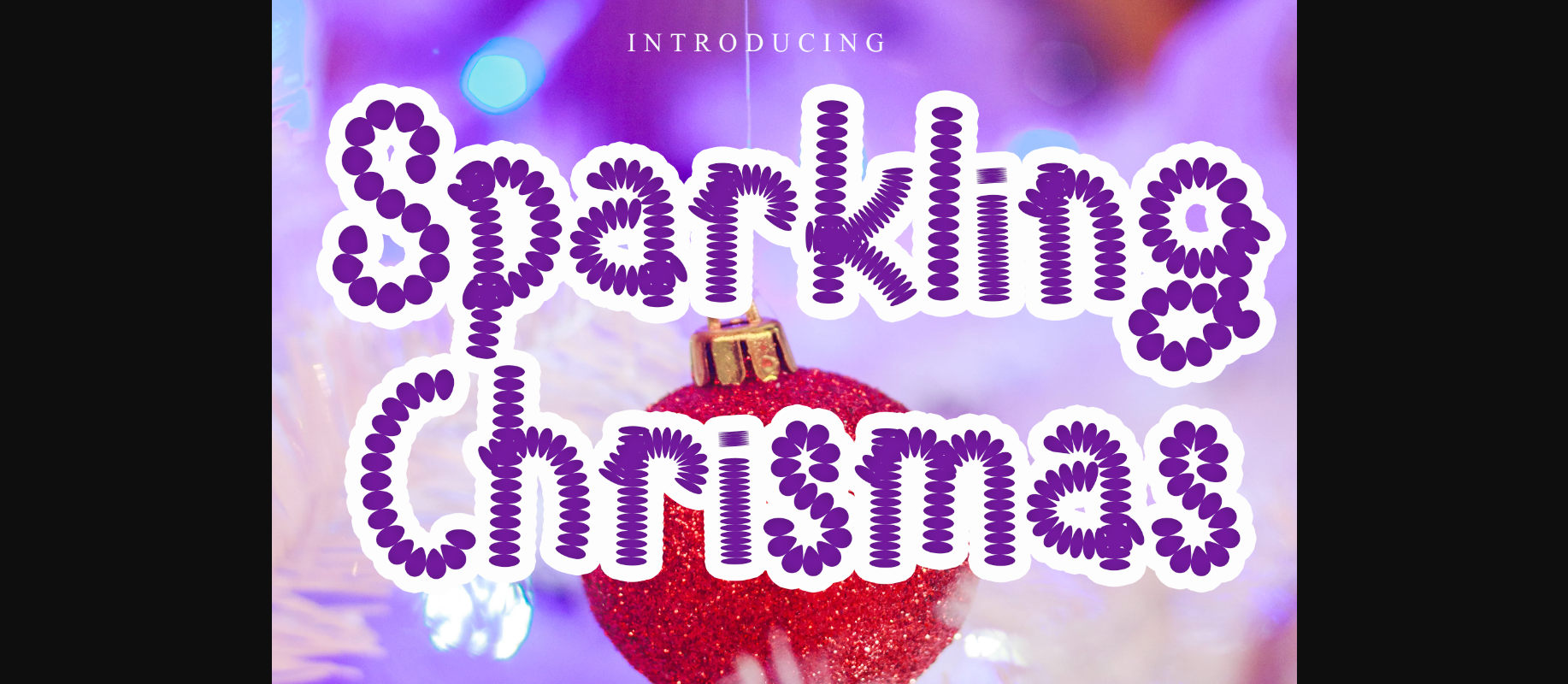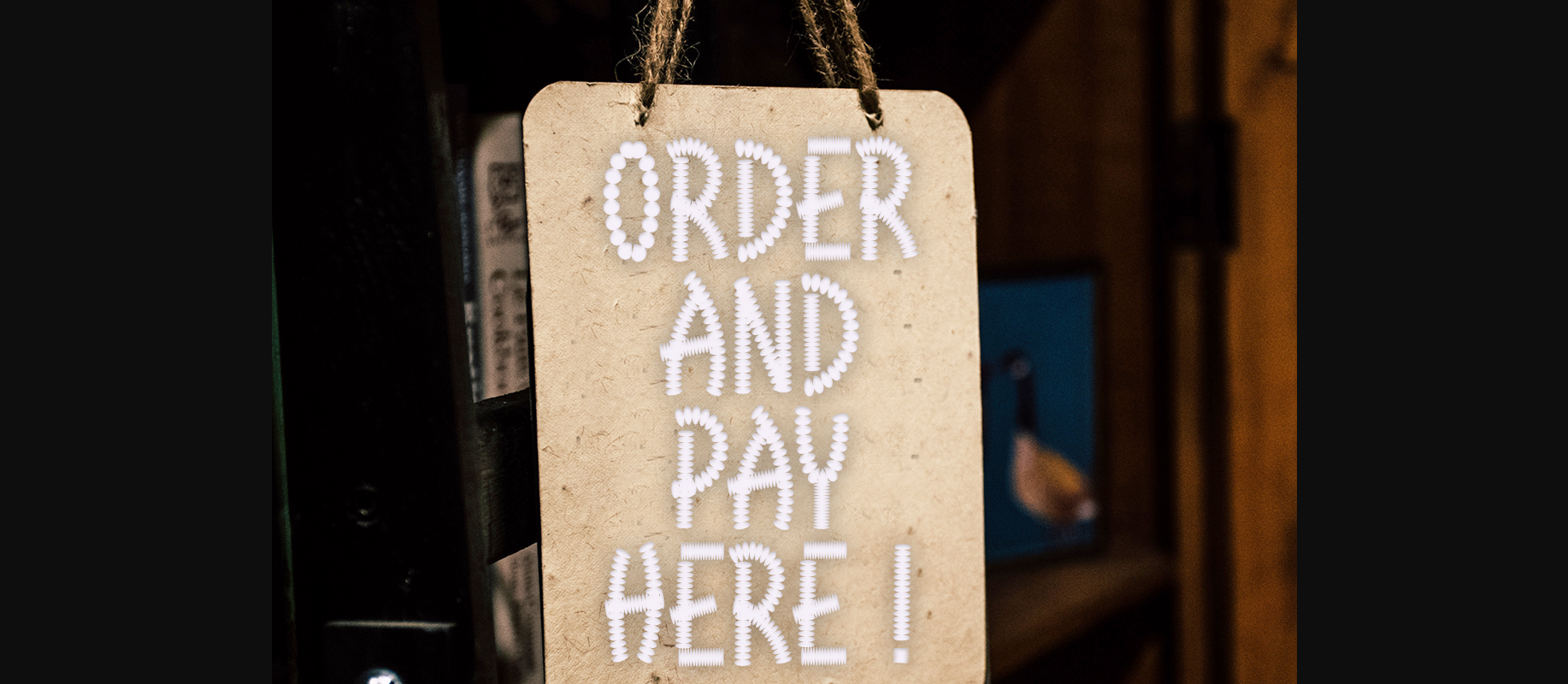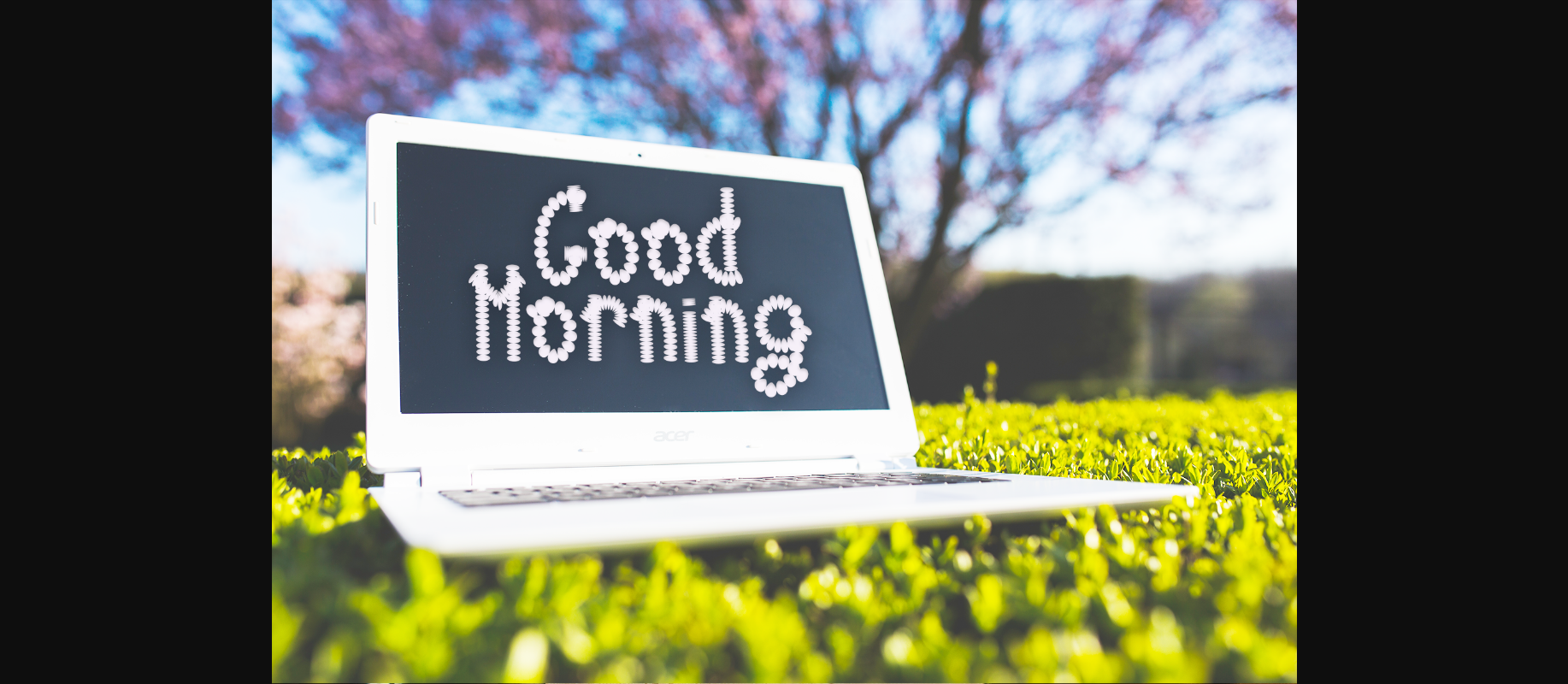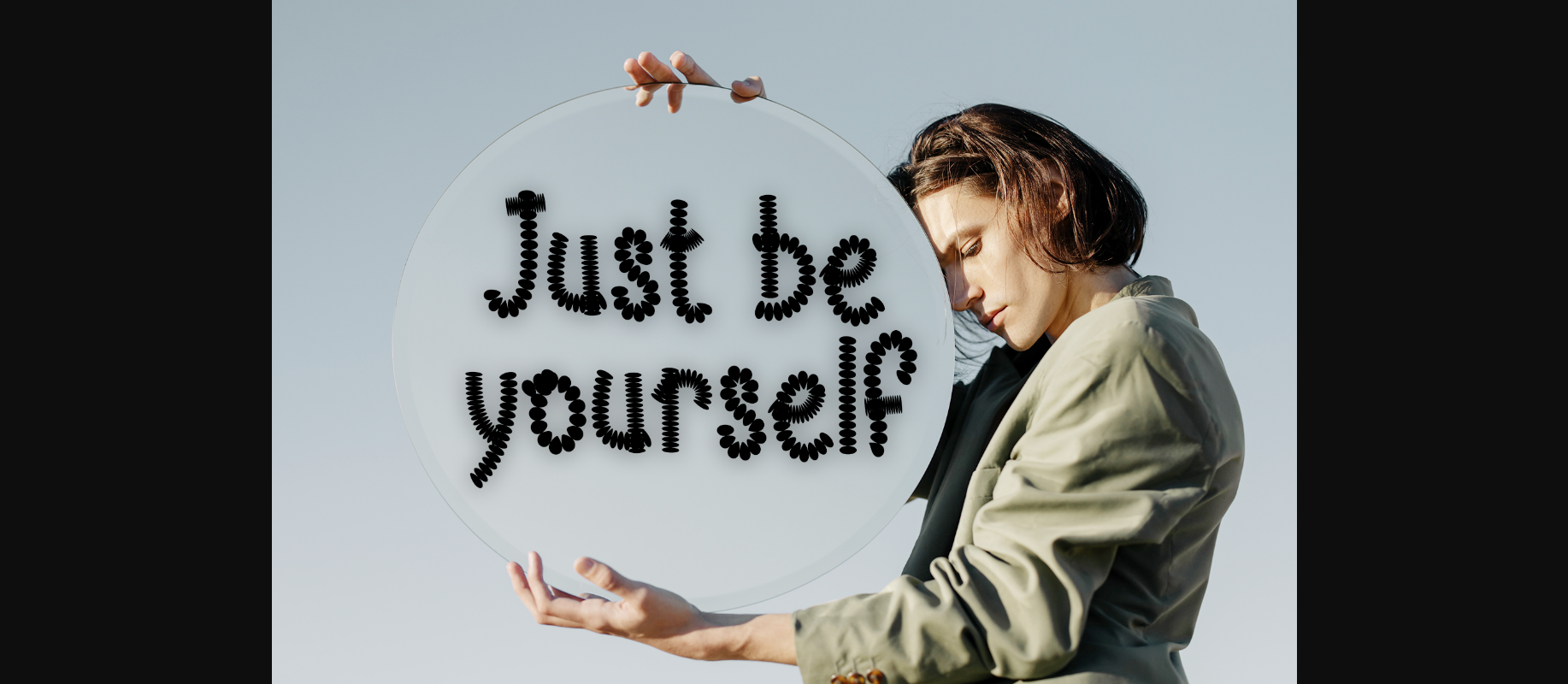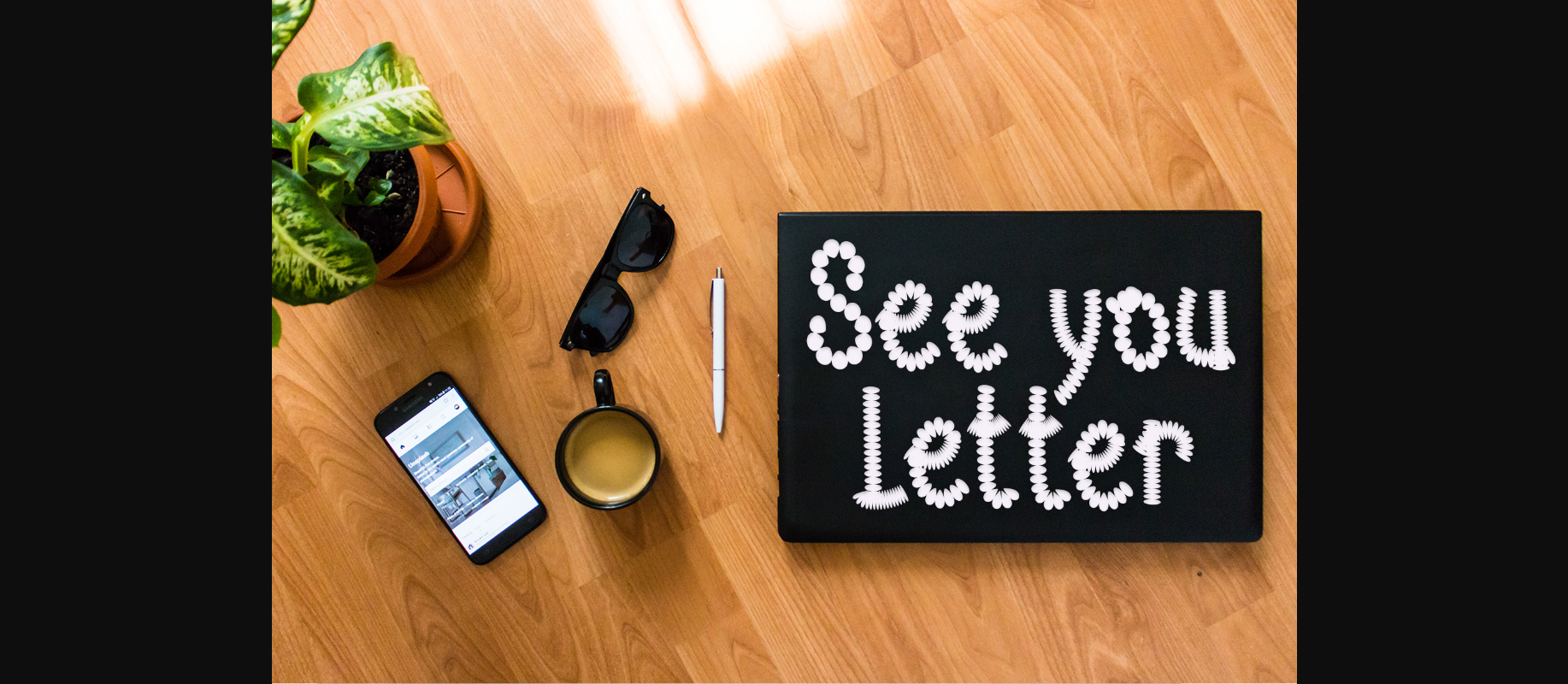
About Sparkling Chrismas FontĀ Font
Sparkling Chrismas is a unique and incredibly interesting decorative font. This font is perfect for children themed designs, especially when combined with bright colors.